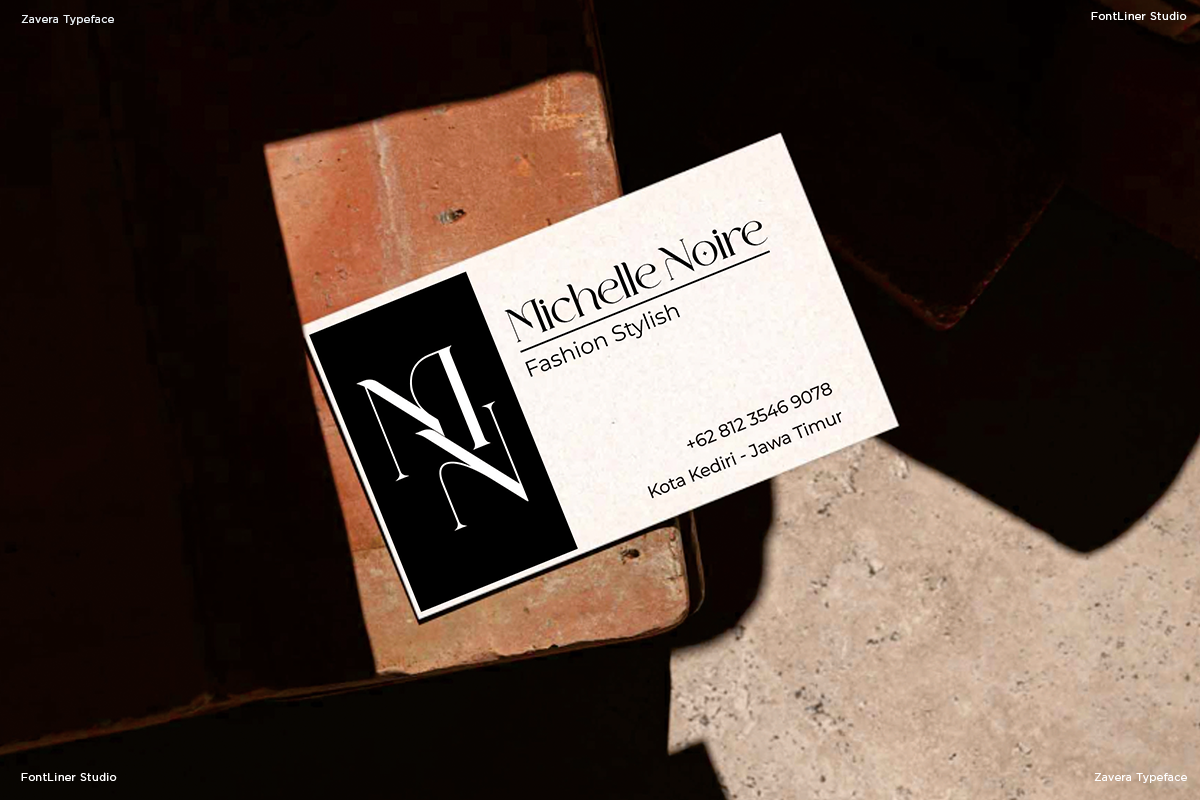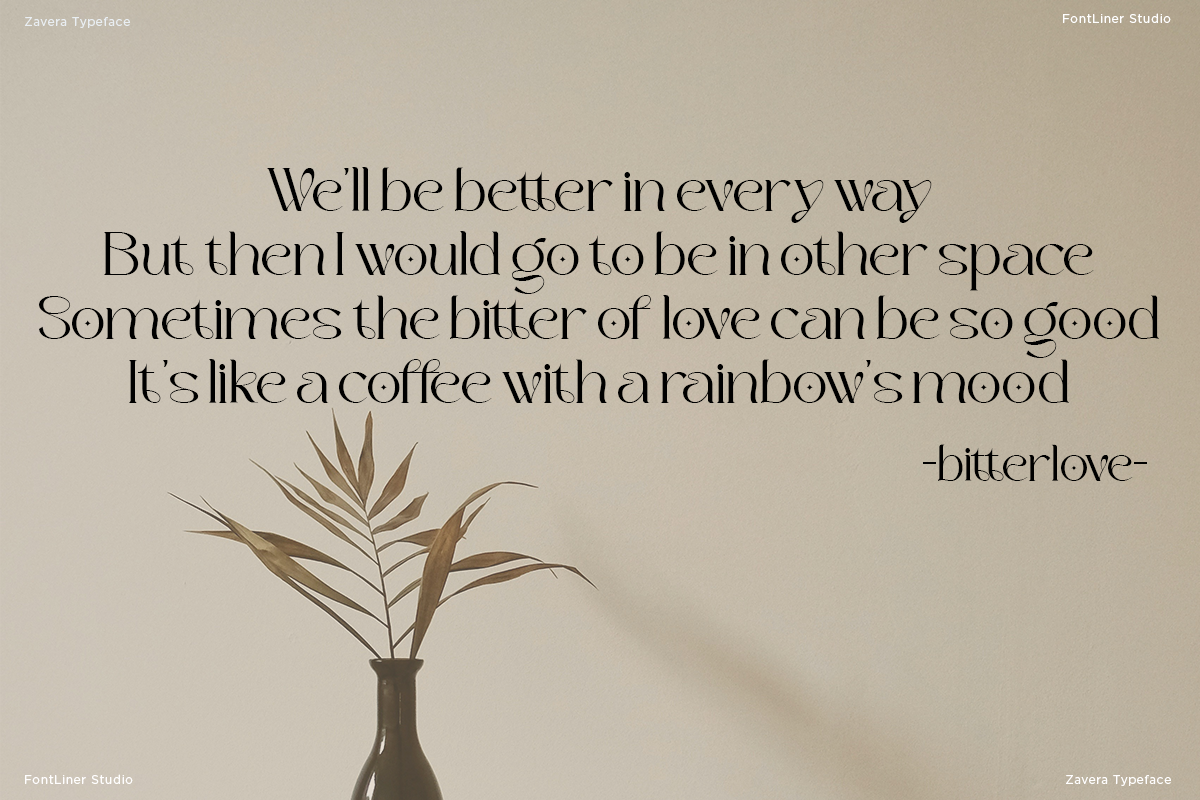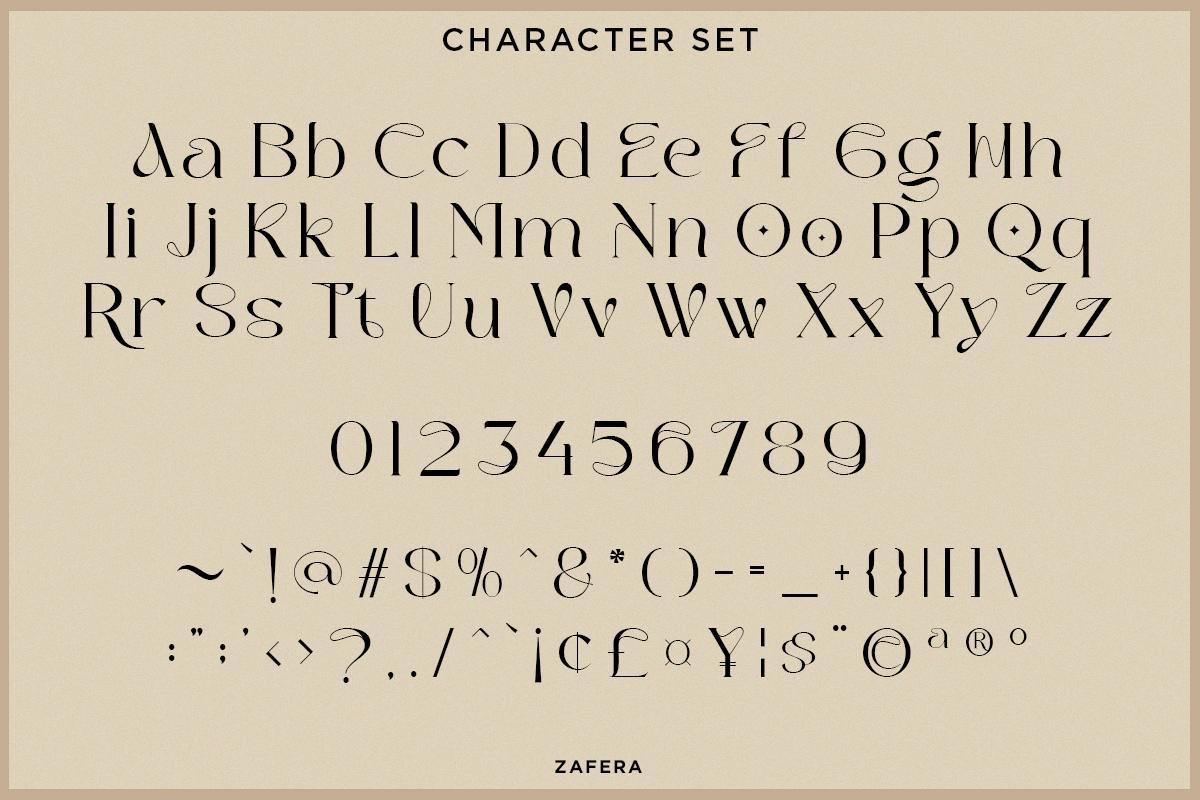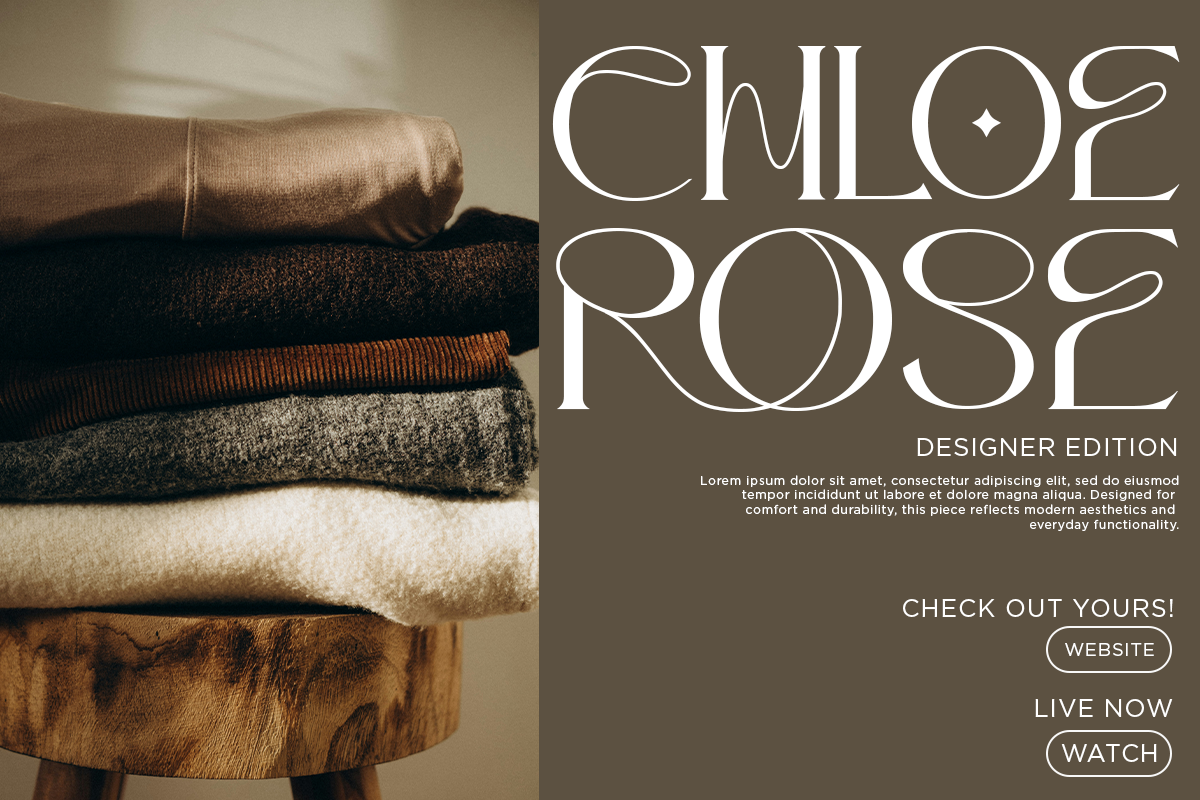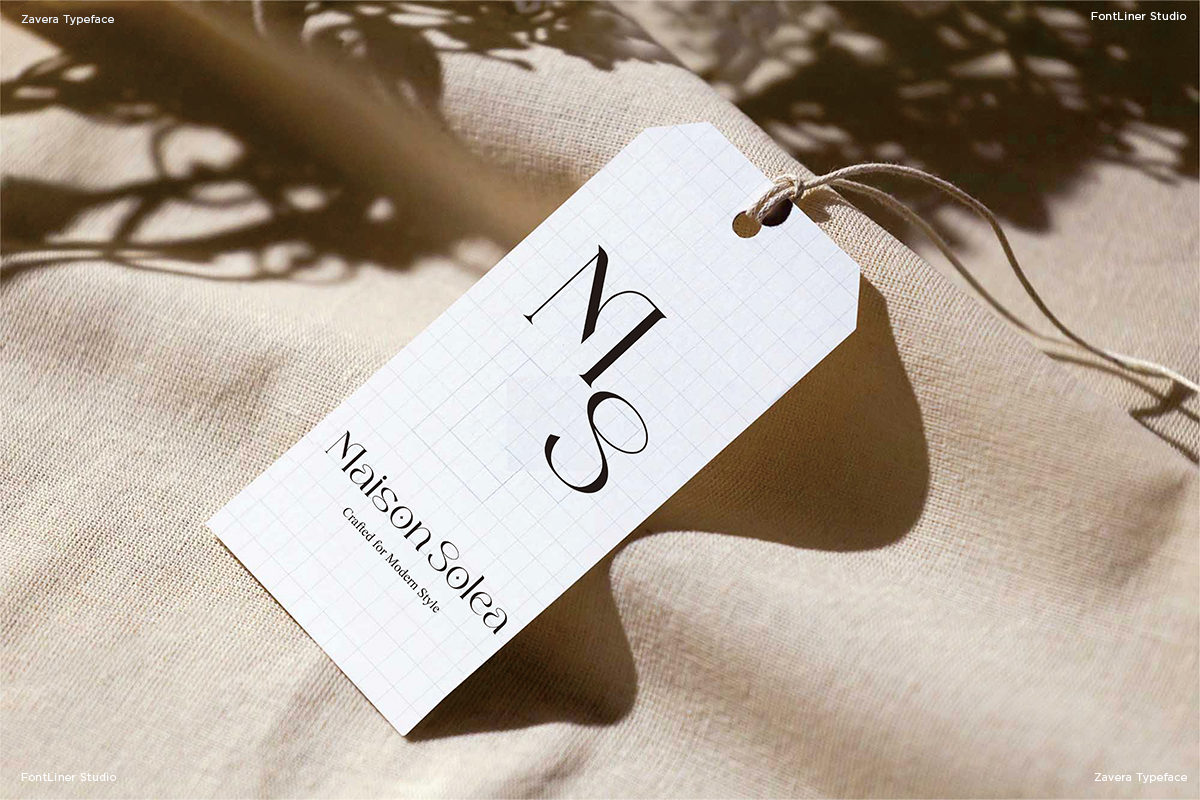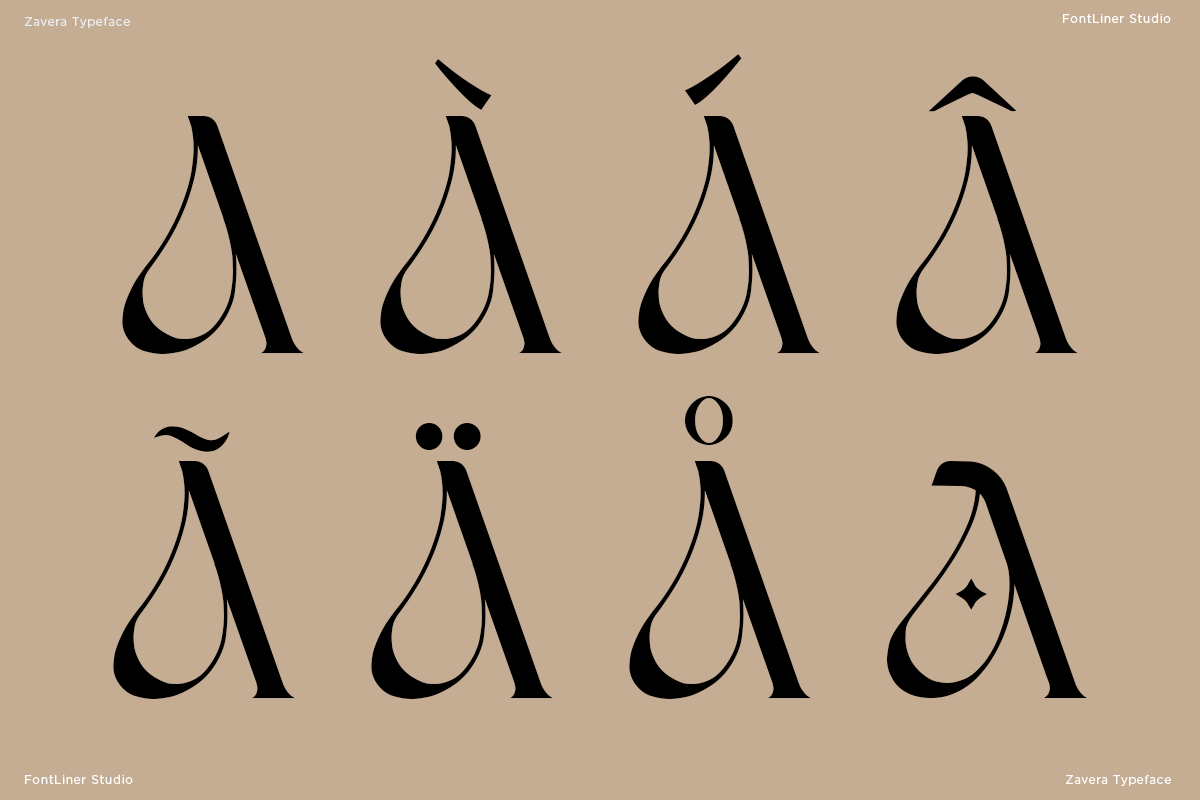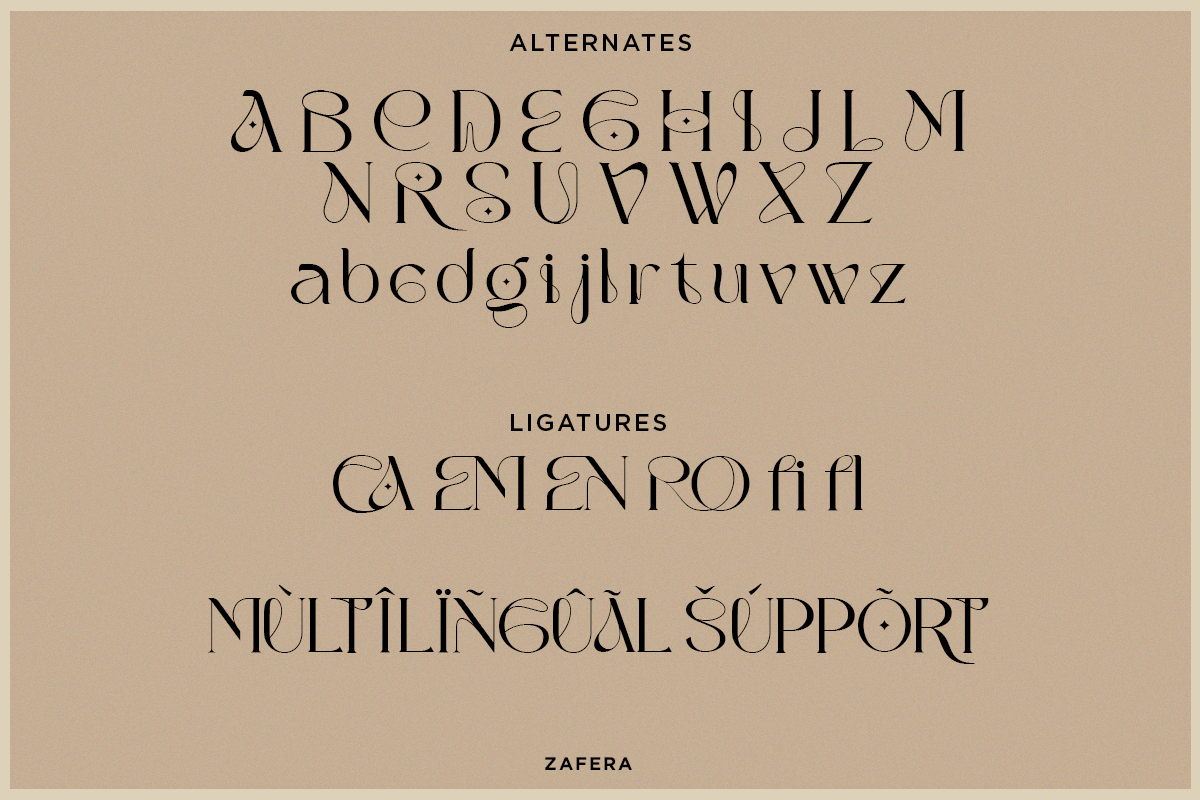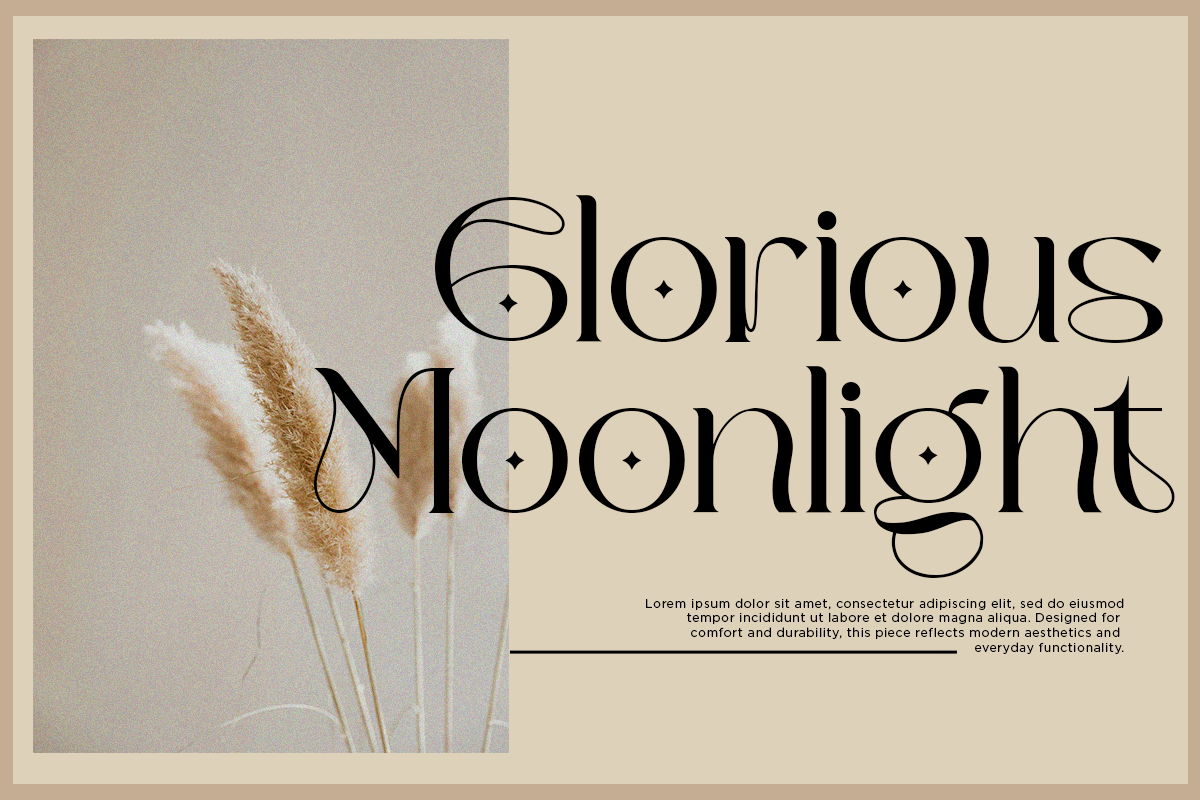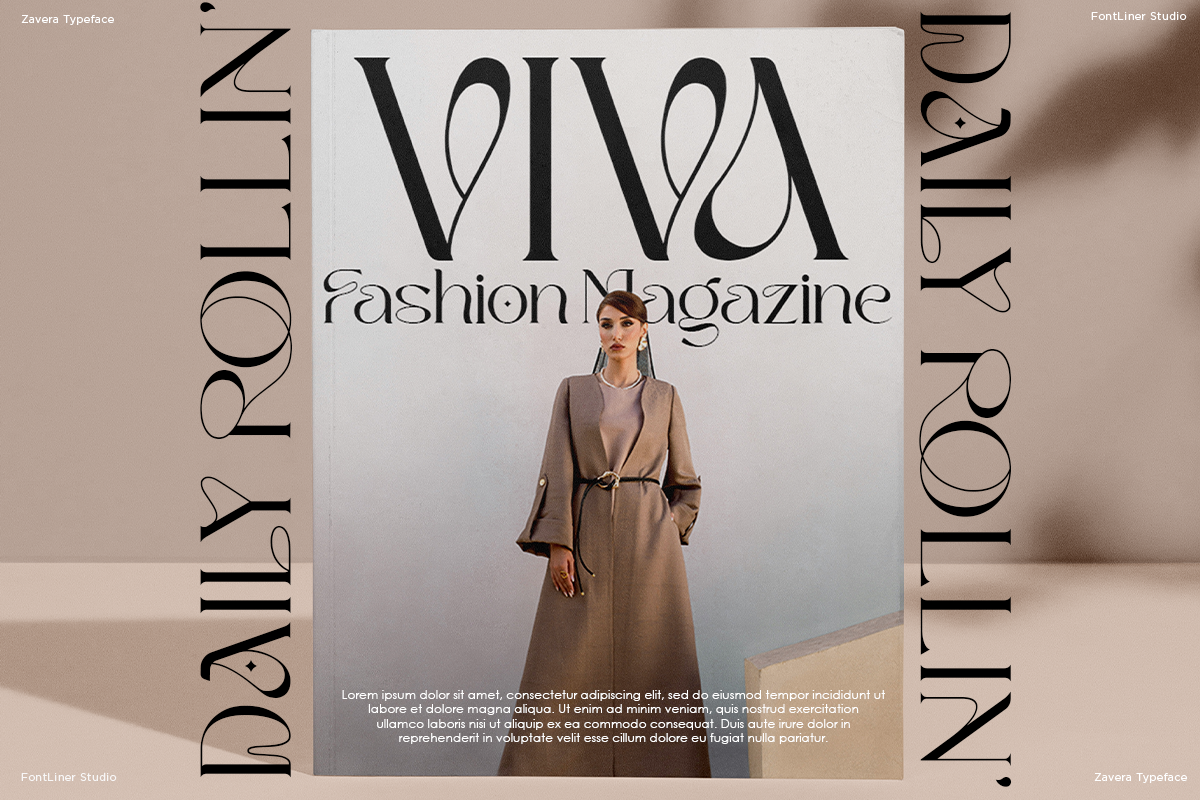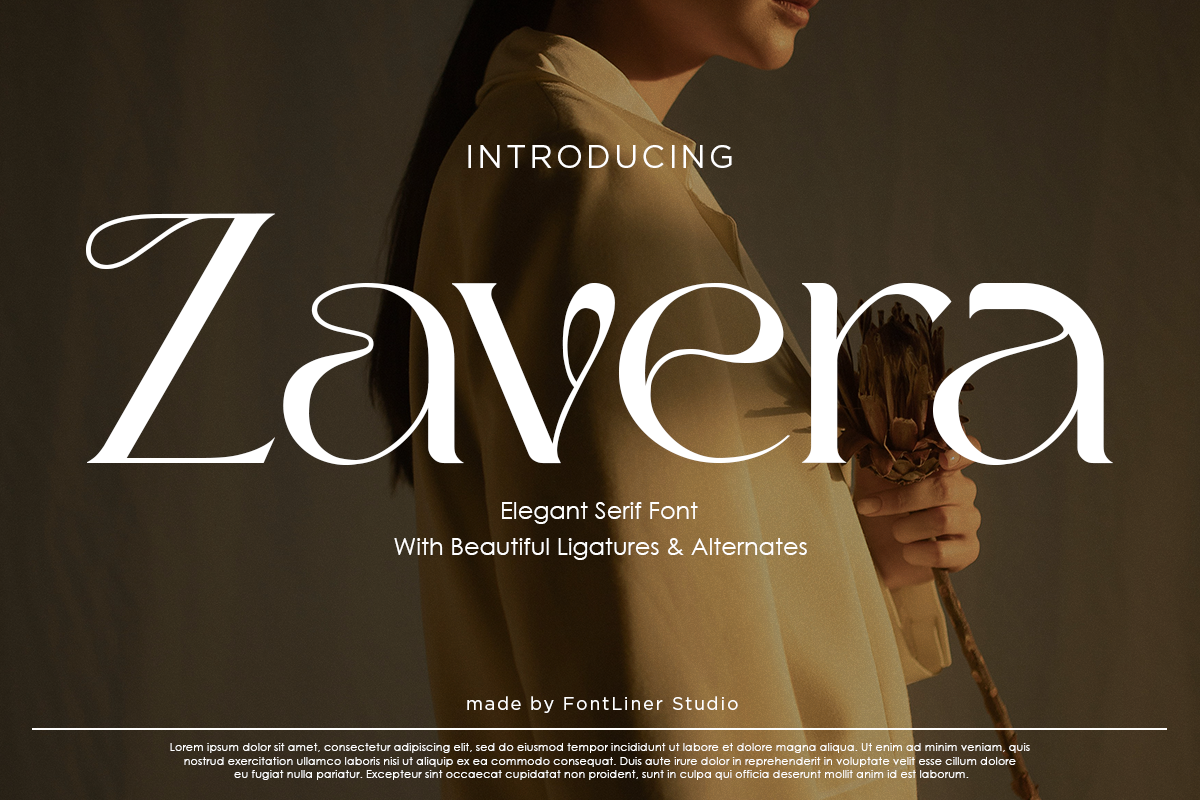
Zavera - Elegant Serif Font
Zavera is an elegant serif typeface designed to bring timeless beauty and refined character to your designs. Featuring graceful curves, balanced contrast, and beautiful ligatures, this font delivers a luxurious and sophisticated feel. Perfect for fashion branding, wedding designs, editorial layouts, logos, and packaging. Zavera enhances every project with a classy and modern touch. Its versatility makes it ideal for both display headlines and stylish typography compositions.
- Uppercase, Lowercase
- Alternates and ligatures
- Symbol, Number